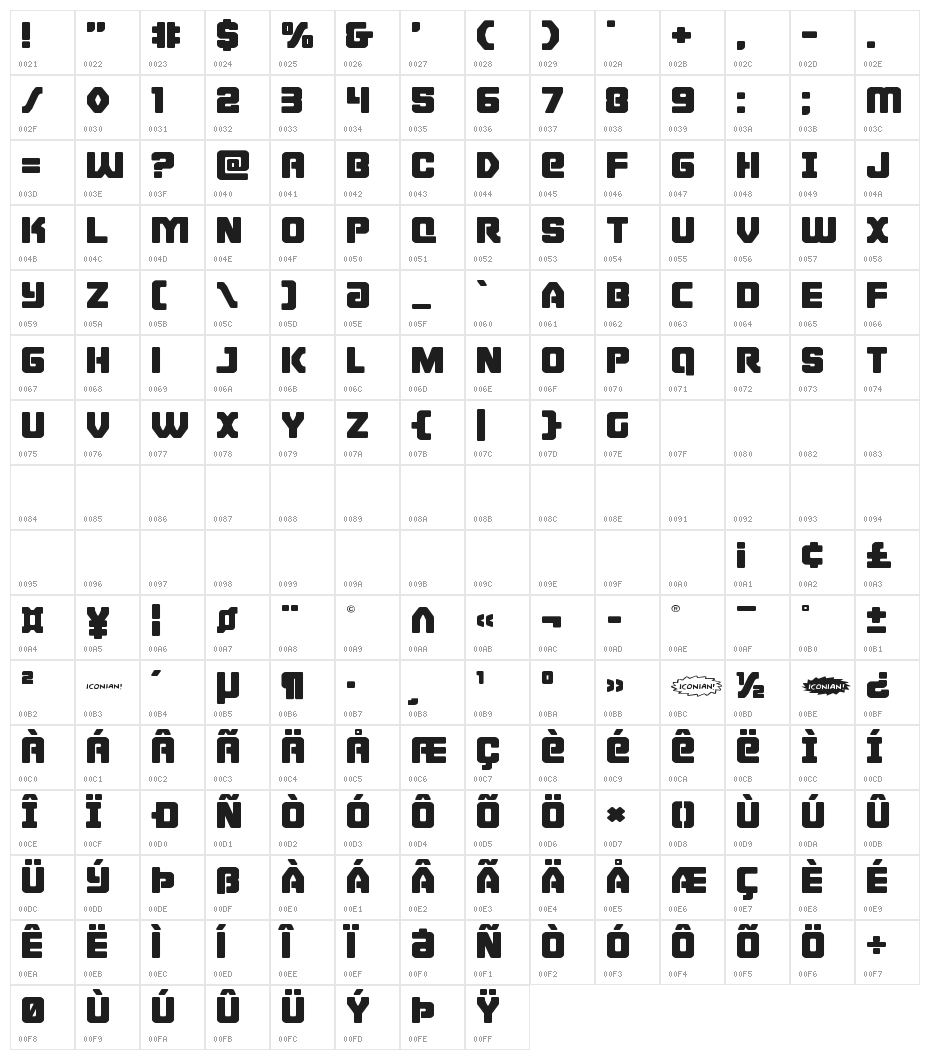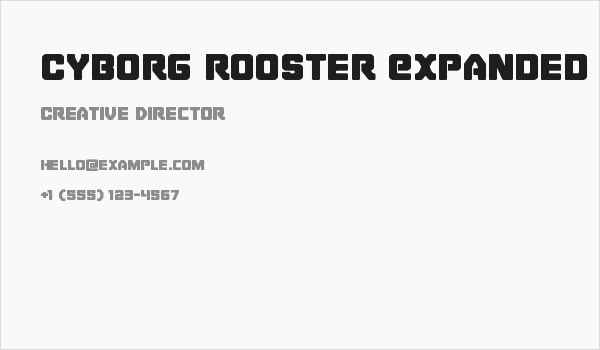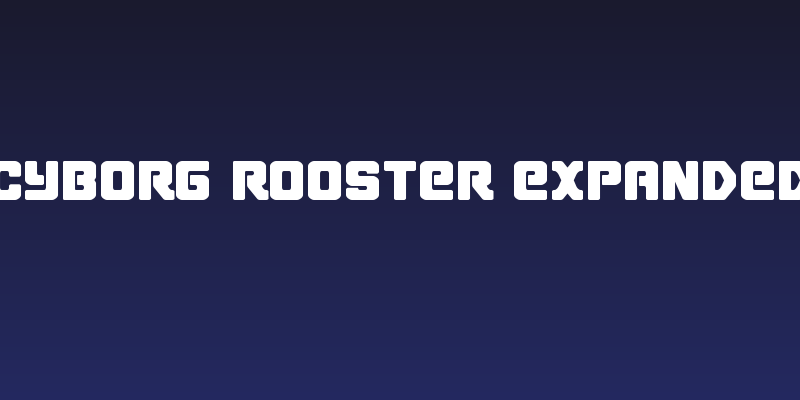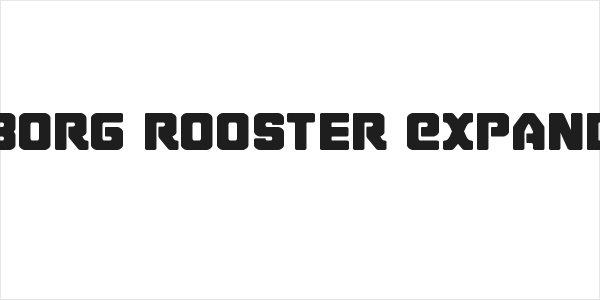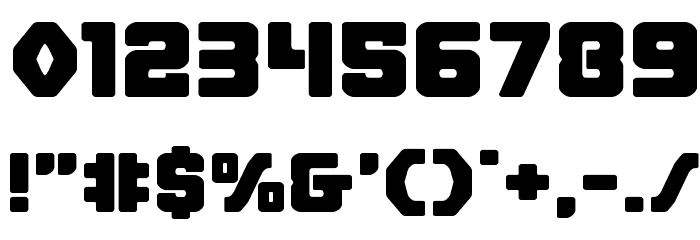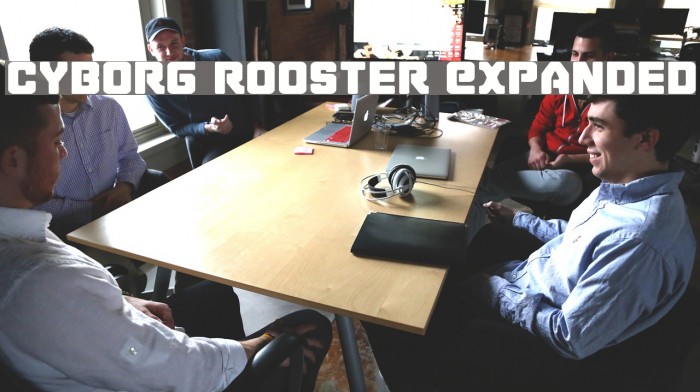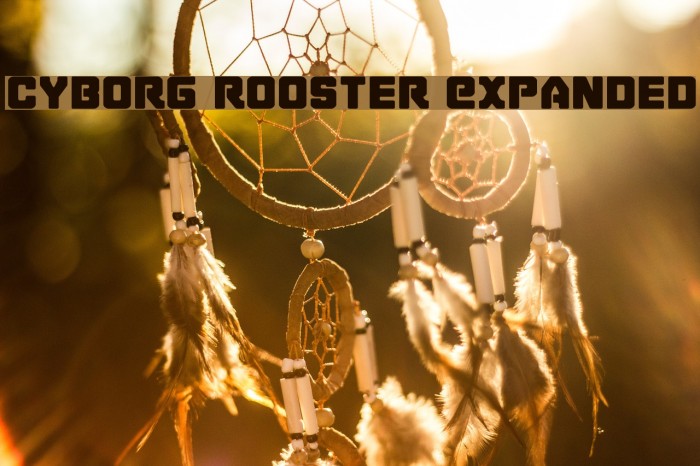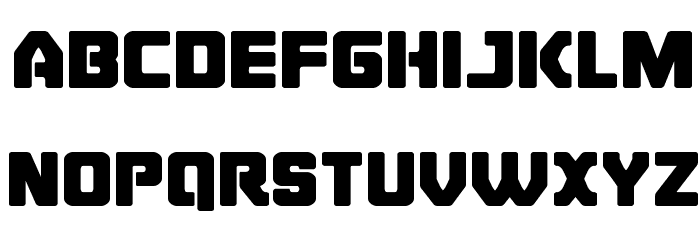
Cyborg Rooster Expanded Font
Cyborg Rooster Expanded Description
This font features a bold and futuristic design with a distinctly geometric structure. The characters are uniformly thick, with a blocky and robust appearance that conveys strength and modernity. The edges are slightly rounded, adding a touch of softness to the otherwise industrial feel. The font is highly legible, even at smaller sizes, due to its clear and consistent line work. It includes a full set of uppercase letters, numbers, and a variety of special characters, making it versatile for different design needs. The style is reminiscent of digital or sci-fi themes, suitable for projects that require a contemporary and tech-savvy aesthetic.
| Proposed Projects | Ideal for technology branding, video game titles, sci-fi book covers, and modern digital interfaces. |